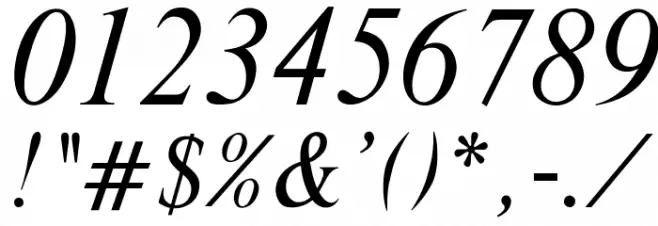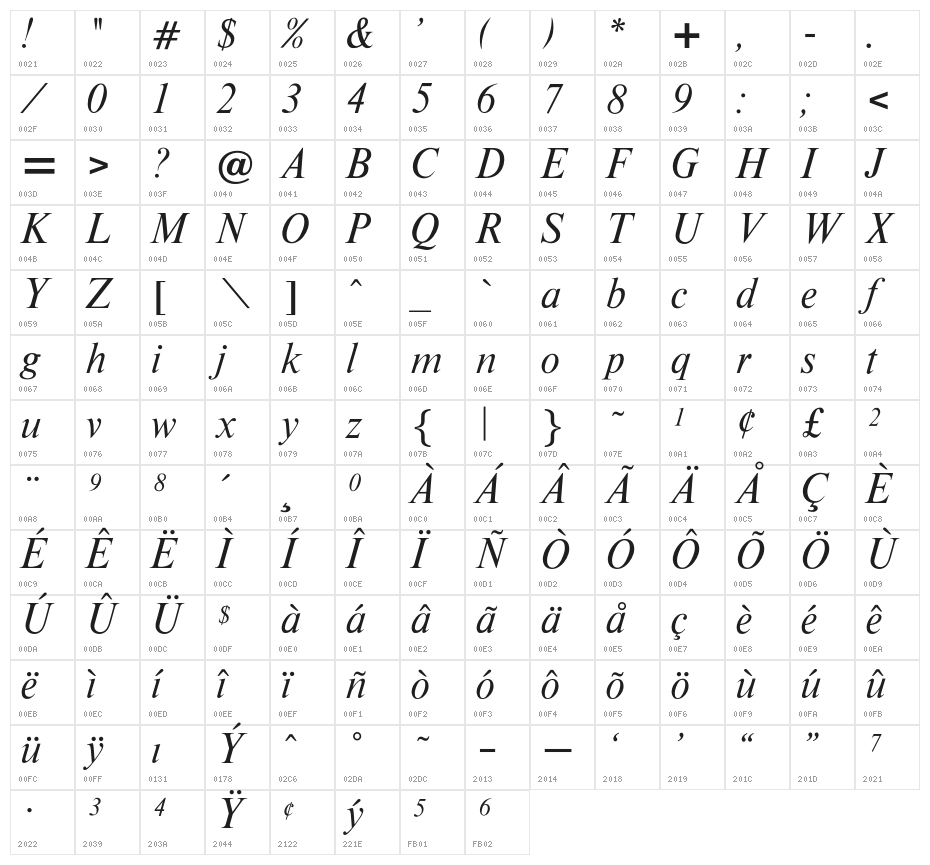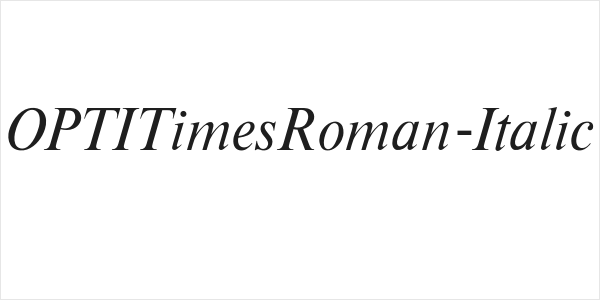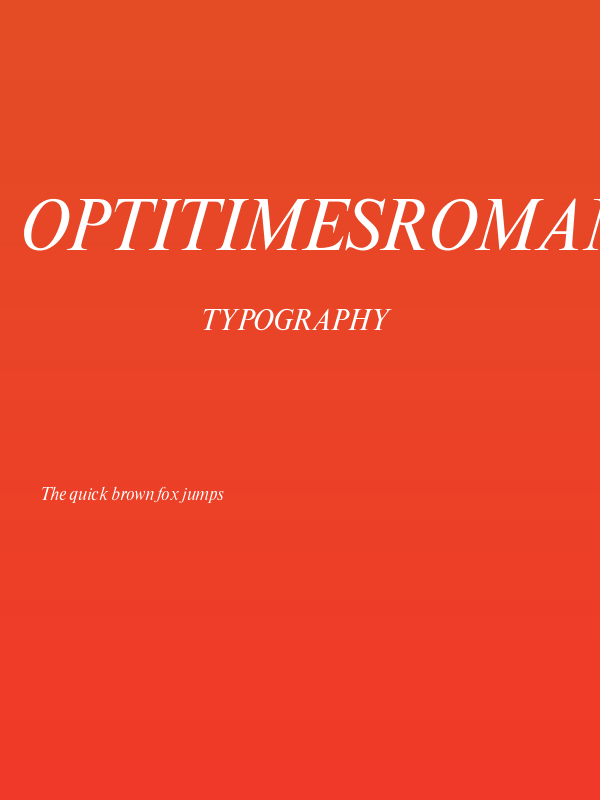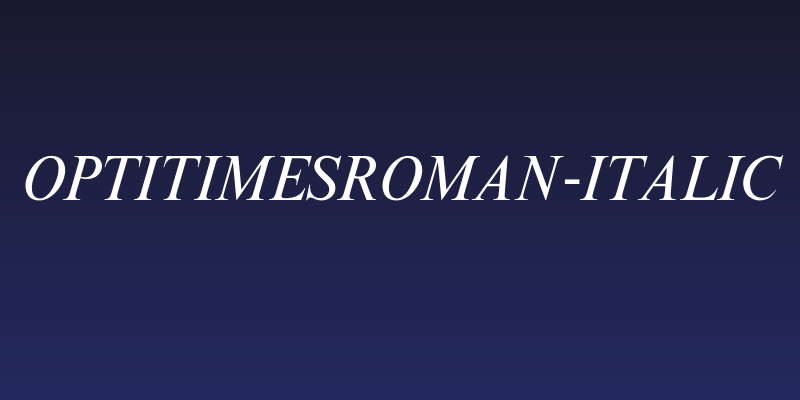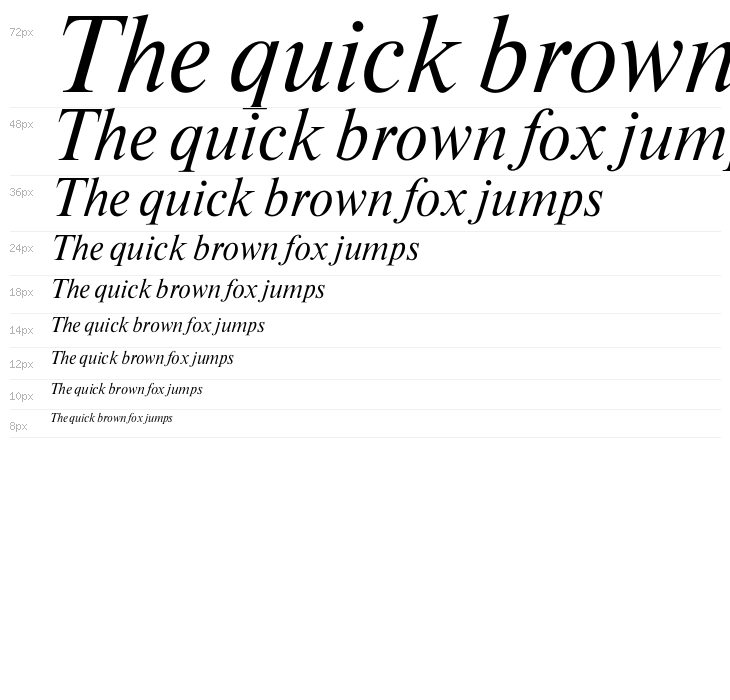
OPTITimesRoman-Italic Font
OPTITimesRoman-Italic Description
This font features a classic and elegant serif design with a distinct italic style. The characters are gracefully slanted, giving a sense of motion and sophistication. The serifs are pronounced yet refined, contributing to a timeless aesthetic. The uppercase letters are stately and well-proportioned, while the lowercase letters maintain a harmonious flow. Numerals are clear and balanced, ensuring readability. The special characters are thoughtfully designed to complement the overall style, making this font suitable for formal and traditional applications.